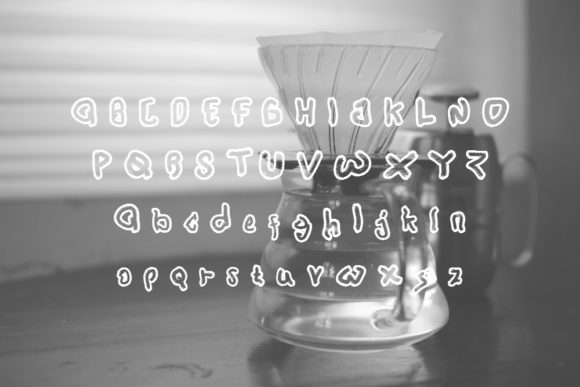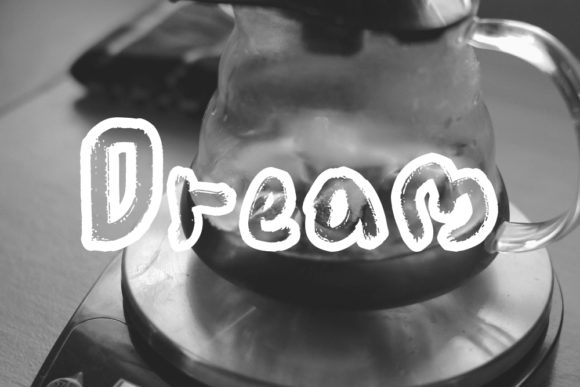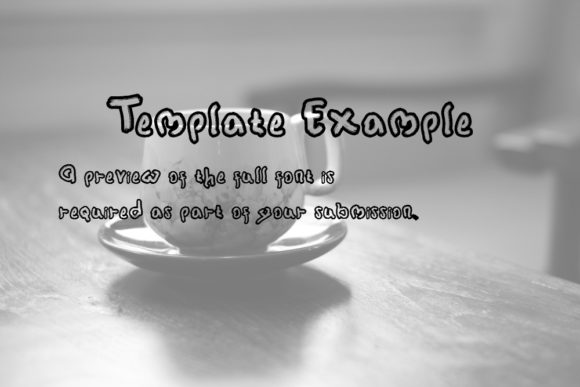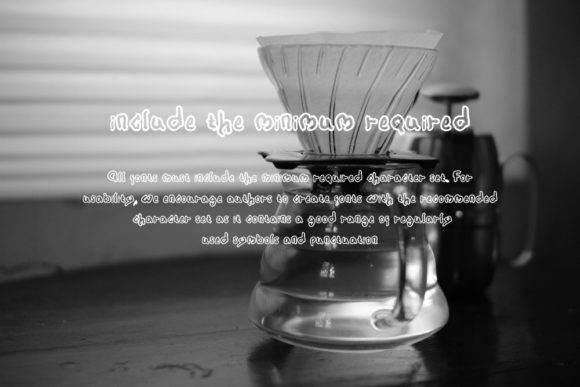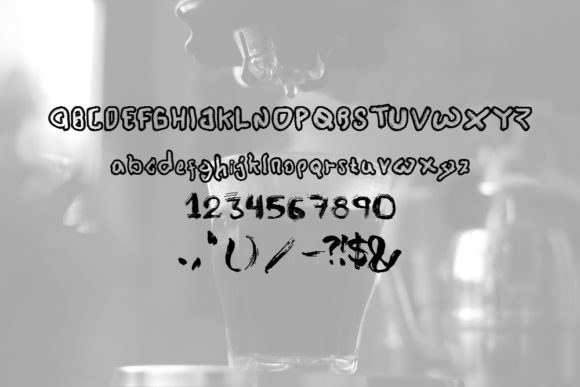
The Ericha Font: A Casual Display Font for Creative Projects
I still remember the design moment that led me to discover the Ericha font. I was working on a branding project for a small craft business, and I was struggling to find the perfect font that captured their playful yet professional vibe. That’s when I stumbled upon Ericha, a casual display font created by using a brush pen. Its clean and quirky style immediately caught my attention, and I knew I had found the perfect fit.
An Honest Review of Ericha Font
What I Love About Ericha ✨
- ✅ Unique brush pen feel: Ericha has a distinct, hand-crafted look that sets it apart from other fonts.
- ✅ Clean and readable: Despite its casual style, Ericha is surprisingly easy to read, even at smaller sizes.
- ✅ Quirky and playful: This font is perfect for adding a touch of personality to your designs.
- ✅ Versatile: Ericha works well for logos, branding, social media, and crafty DIY projects.
- ⚠️ Limited formal applications: Ericha’s casual style may not be suitable for more formal or traditional designs.
- ⚠️ May not work well at very small sizes: While Ericha is readable at smaller sizes, it may lose some of its charm and character.
- Experiment with OpenType features, such as ligatures and stylistic alternates, to add more personality to your text.
- Explore the font’s glyphs and OpenType features, such as swashes and stylistic sets, to add more creativity to your designs.
The Story Behind Ericha Font
Ericha was designed by a team of creatives who wanted to create a font that captured the essence of hand-crafted design. Inspired by the imperfections and quirks of brush pen writing, Ericha was born. The font’s unique style has since become popular among designers and crafters who want to add a touch of personality to their projects.
Q: What is Ericha font best used for?
A: Ericha is perfect for logos, branding, social media, and crafty DIY projects that require a casual, yet professional font.